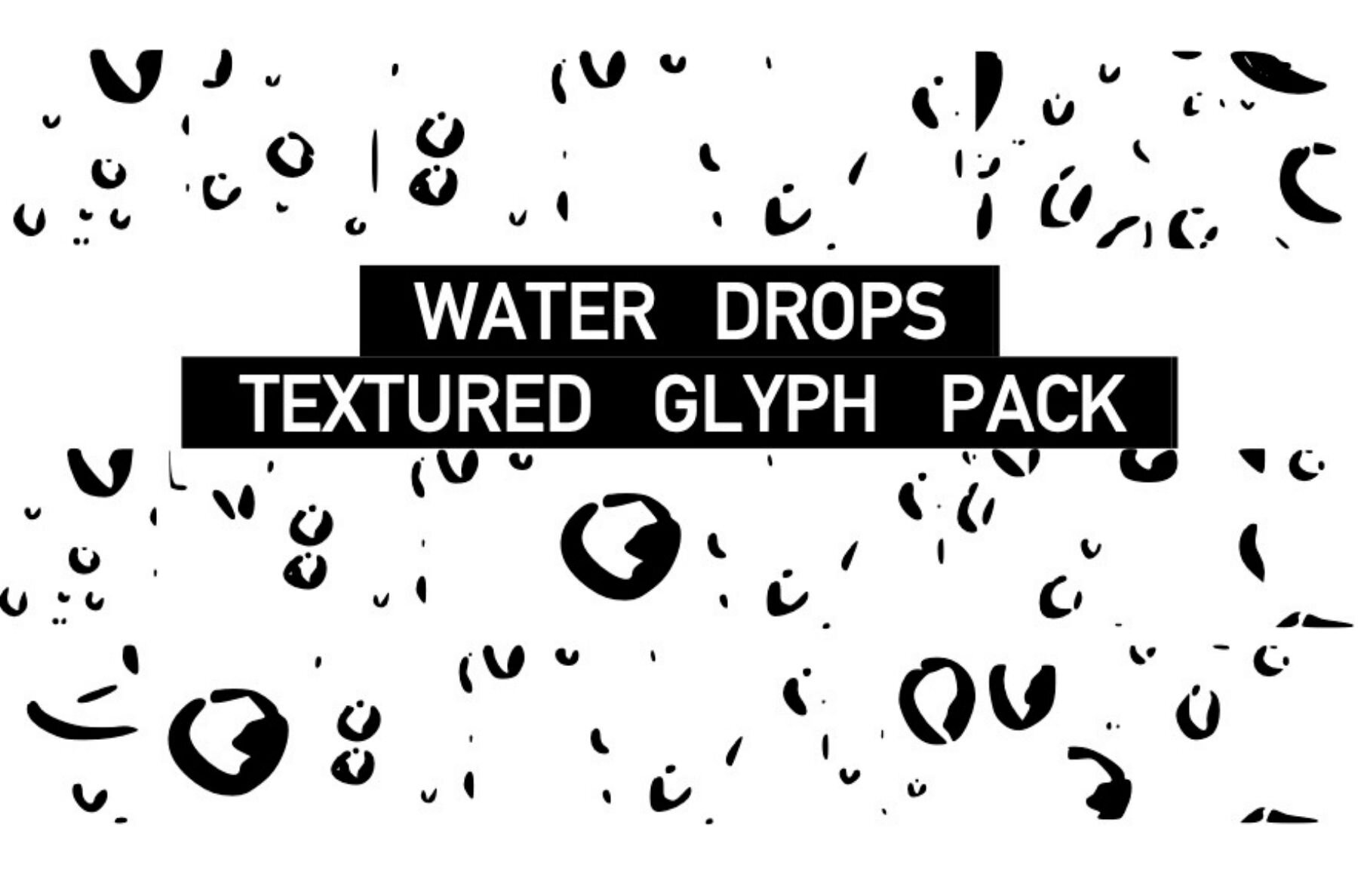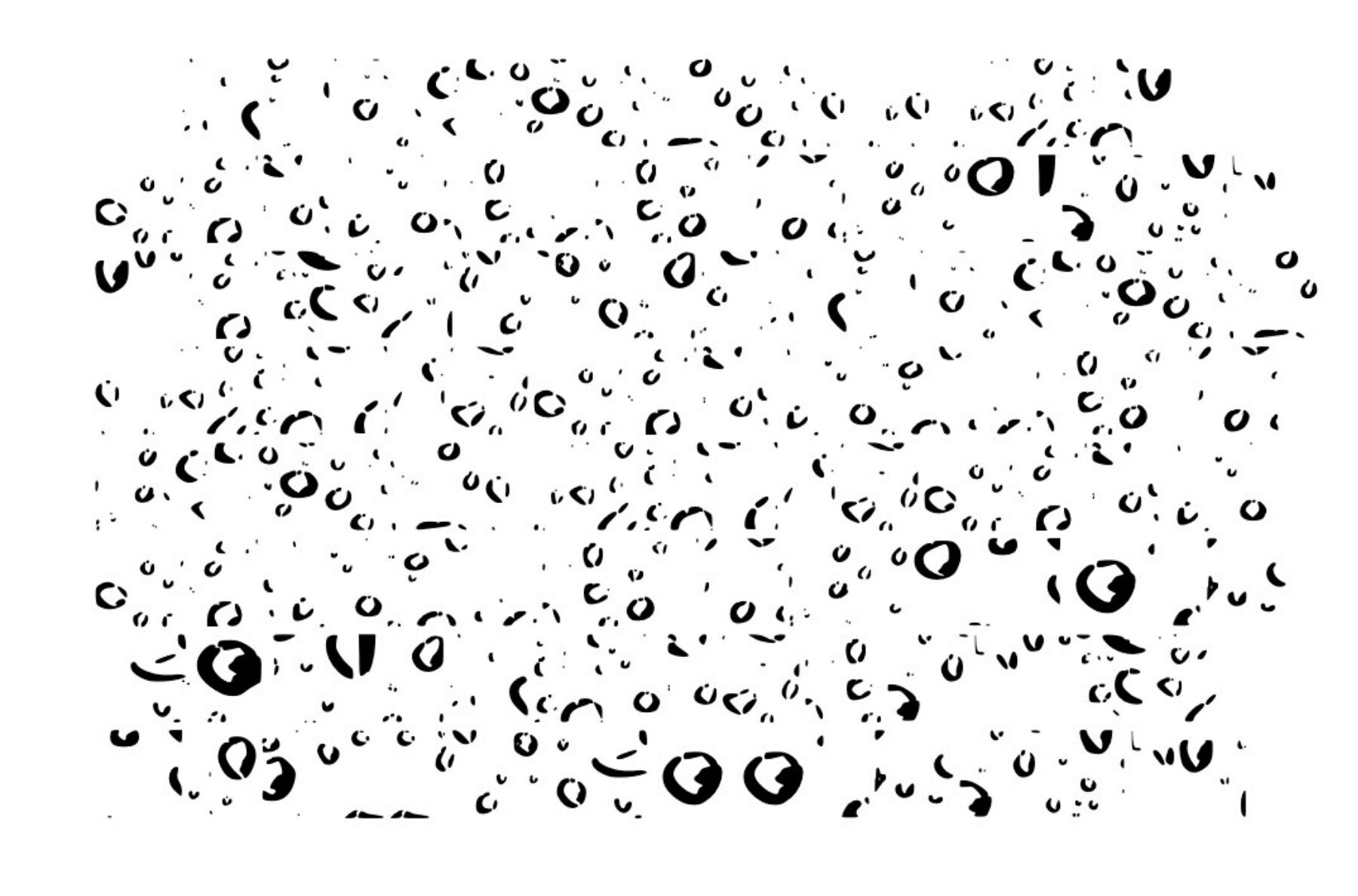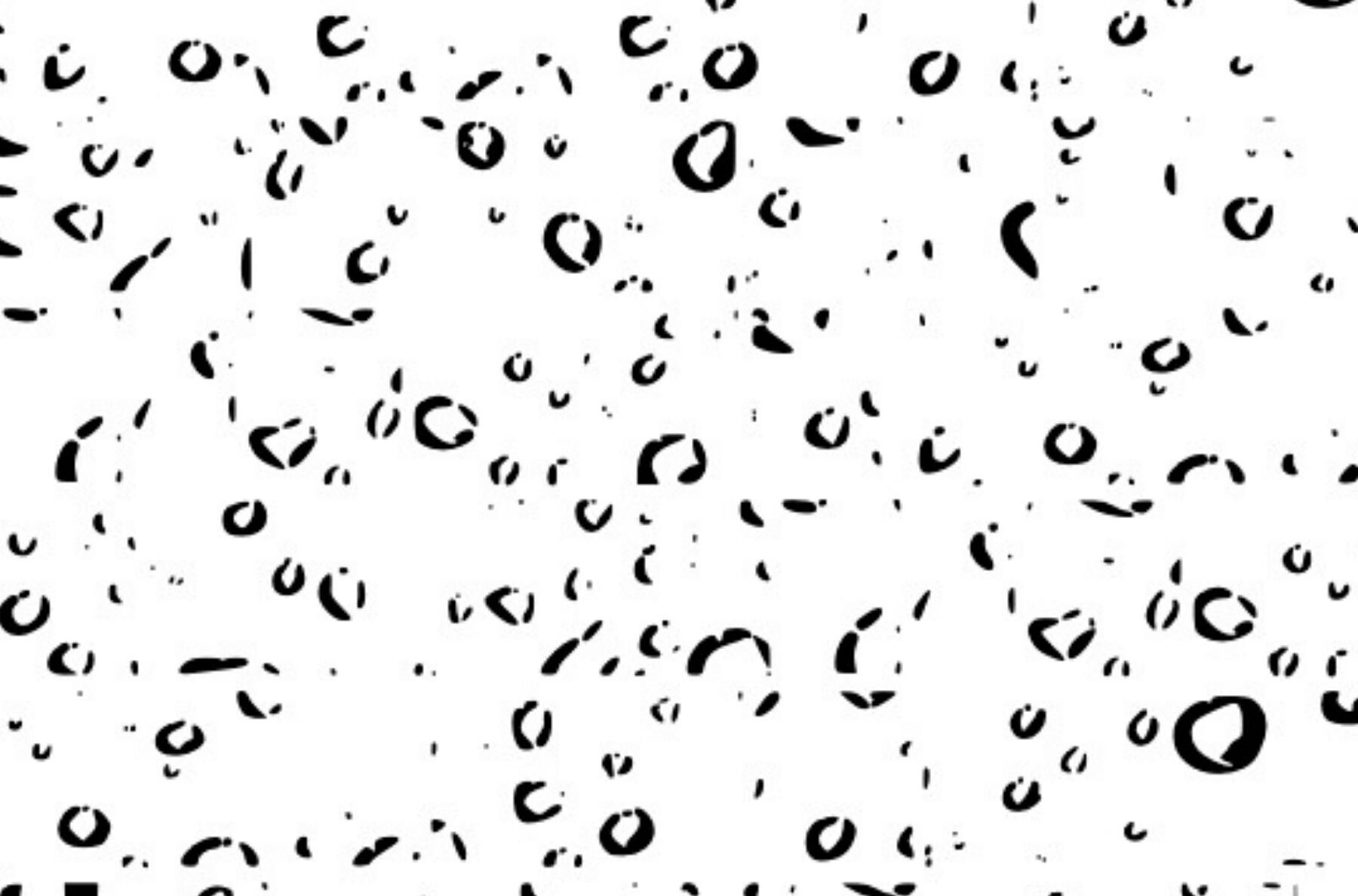
Texture Water Drops Font
Texture Water Drops
Discover the refreshing allure of the Texture Water Drops glyph set, a collection meticulously designed to infuse your projects with the essence of water's beauty. Ideal for any water-inspired design or craft venture, these glyphs offer a versatile array of textures that capture the mesmerizing effect of water drops.Texture Water Drops